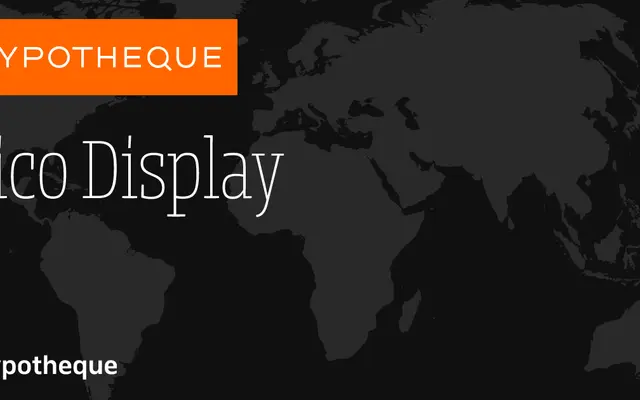
Zico Display
The decorative display arm of the Zico type system, offering Thin, Outline, Black and Inline variants designed for large-scale headline and identity work.
Zico Display sits at the expressive end of the broader Zico family, which spans Zico Sans, Zico Sans Condensed and Zico Slab. The Display subfamily provides four stylistically distinct cuts: Thin, Outline, Black and Inline, each suited to poster and branding contexts where contrast and character at large sizes matter. The system has been applied to sports branding, as seen in the Salisol identity shown on the product page.
Zico Display is a display-specific subfamily within the Zico system, offering decorative optical variants including Thin, Outline, Black and Inline cuts suited to large-scale headline use rather than text setting.